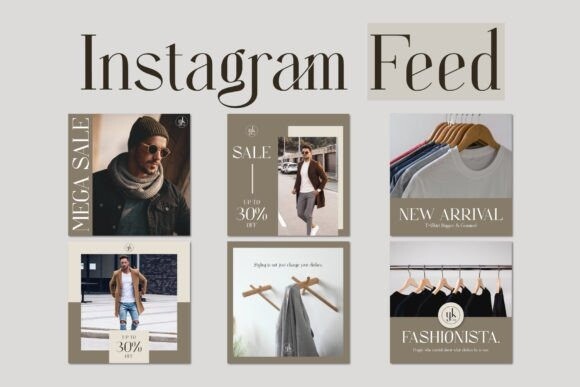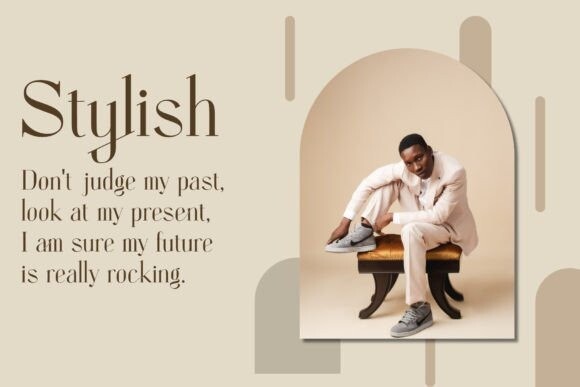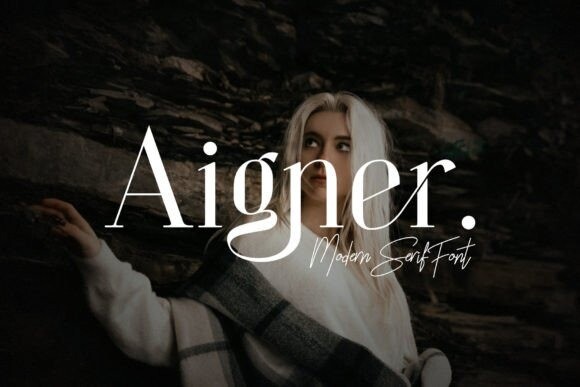
Aigner Font
Aigner is a stylish and fashionable serif font. Masterfully designed to become a true favorite, this font has the potential to bring each of your creative ideas to the highest level!